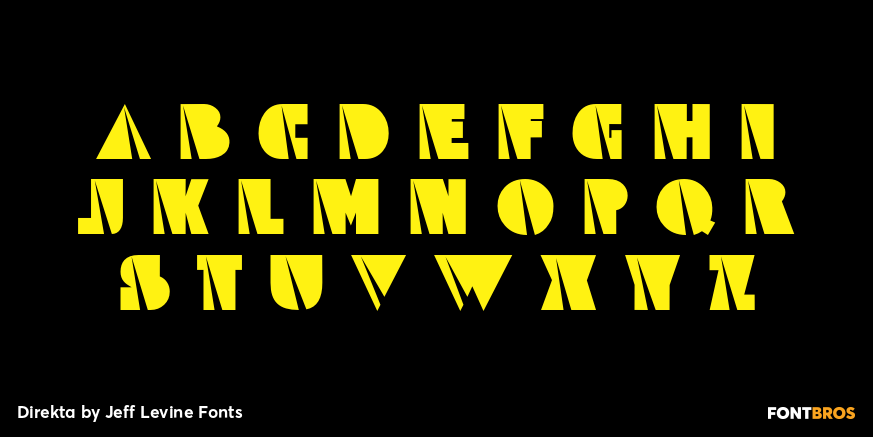
Direkta
Direkta JNL take the classic Art Deco influenced lettering of the 30s and 40s and adds A diagonal triangular cut into the letters, creating an aire of forward movement.